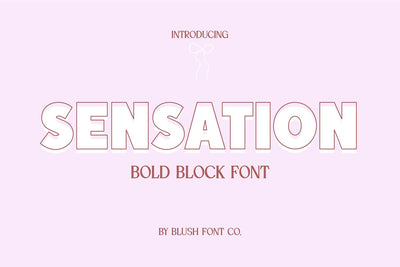
Sensation Bold Chunky Display Sans Font
"Sensation" a bold chunky simple sans display font.
Multilingual support.
This font is a bold display font that is perfect for social media or crafty projects. Use if for branding, crafts for decor, invitations, and more! All caps glyphs, numbers, and punctuation marks, and intl characters.